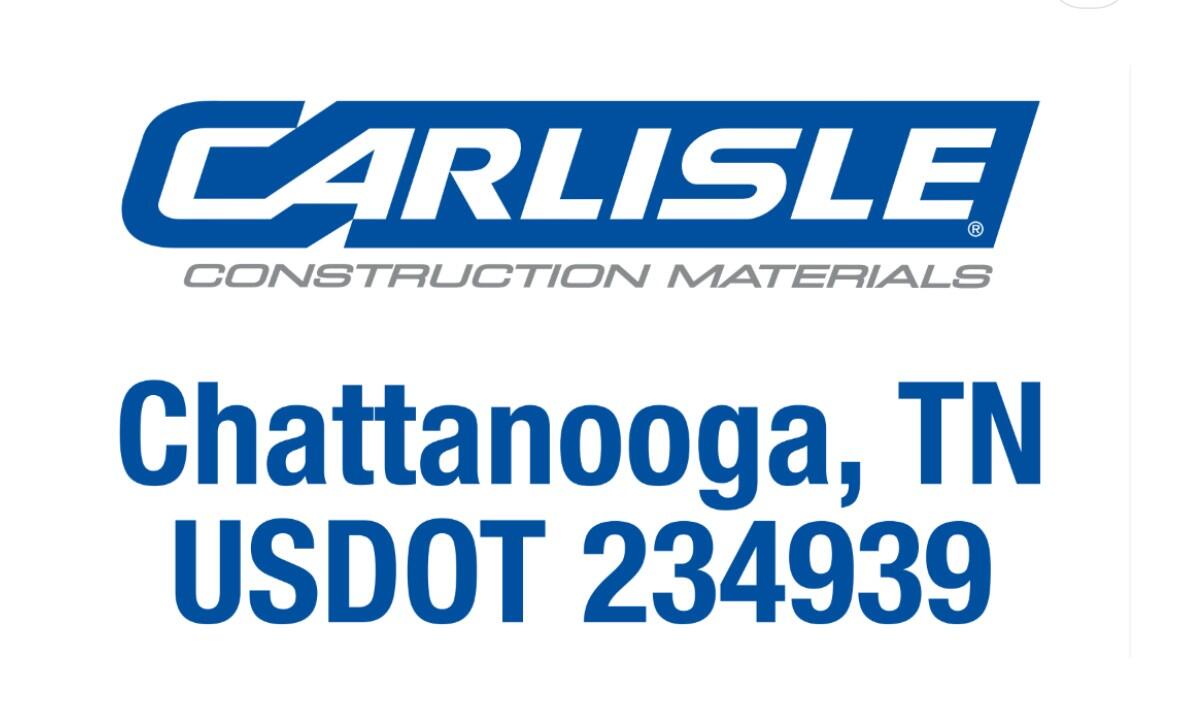
Font Identification for Carlisle Construction Materials Logo
I need help identifying the typefaces used for "Carlisle" and "Construction Materials" in the attached file. Any and all suggestions are welcome. Thanks.
actually, the subline "construction materials"'s been bolded adding a stroke to the characters